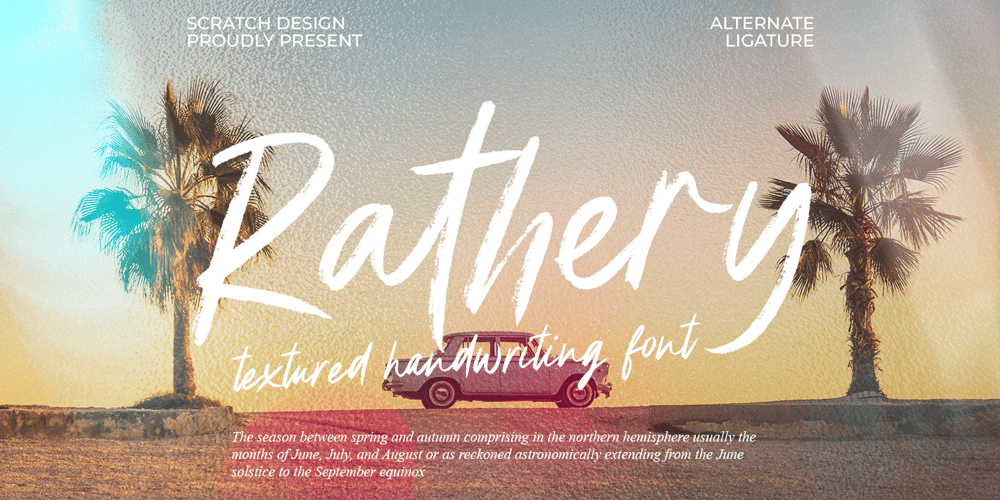
Rathery Font Family was designed by Gitayogi Irhandi and published by Scratch Design. Rathery contains 1 styles and family package options. Please welcome, RatheryRathery is a textured handwritten script font made by Love. This font is detailed and has a beautiful shape. It will give you a summer vibe in your design. This font will be perfect for posters, invitations, branding, social media content, headlines, body text in magazines, logos and many more.What you’ll get : Uppercase and lowercase Numbers & punctuation Multilingual support Alternates for lowercase Ligatures Please make sure you have your OpenType Ligatures turned on to see the magic of ligatures. Thank you for your purchase!Hope you enjoy our font!